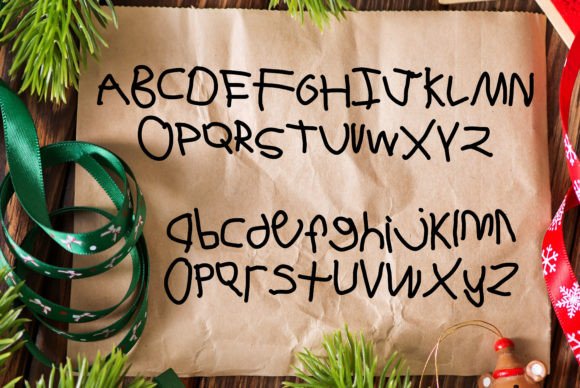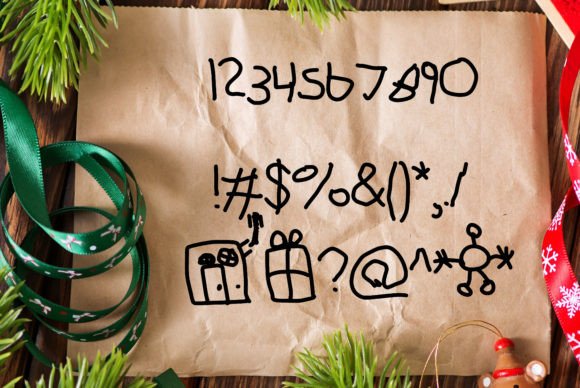
Introducing Dear Santa: The Ultimate Holiday Font for Your Festive Creations
Are you looking for a font that embodies the magic and wonder of the holiday season? Look no further than Dear Santa, a whimsical typeface that’s sure to bring a smile to everyone’s face. This charming font is perfect for designers, crafters, and anyone who wants to add a touch of holiday cheer to their creations.
The Story Behind Dear Santa
Dear Santa is a hand-drawn font that’s inspired by the classic handwritten letters to Santa Claus that children write every year. Its uneven, carefree strokes and adorable doodles capture the essence of childhood and the holiday season. The font’s playful and carefree nature makes it perfect for a wide range of holiday projects, from festive posters and holiday cards to gift tags and decorations.
What Makes Dear Santa So Special?
So, what sets Dear Santa apart from other fonts? Here are just a few reasons why this font is a must-have for your holiday designs:
- Hand-drawn charm: Dear Santa has a unique, hand-drawn quality that gives it a warm and personal touch. Its imperfect strokes and playful doodles make it feel like a handwritten letter from a child.
- Whimsical and playful: This font is all about having fun and embracing the magic of the holiday season. Its carefree nature makes it perfect for designs that need to be playful and eye-catching.
- Instantly recognizable: Dear Santa is a font that’s instantly recognizable as holiday-themed. It’s the perfect choice for designers who want to create festive and seasonal designs that stand out.
- Versatile: Whether you’re designing holiday cards, gift tags, posters, or decorations, Dear Santa is a versatile font that can be used for a wide range of projects.
How to Use Dear Santa in Your Designs
Dear Santa is a font that’s easy to use and can be incorporated into a wide range of designs. Here are a few ideas to get you started:
- Holiday cards: Use Dear Santa to create personalized holiday cards that are sure to delight your friends and family.
- Gift tags: Add a touch of holiday cheer to your gifts with Dear Santa. This font is perfect for creating custom gift tags that are both festive and functional.
- Festive posters: Create eye-catching posters that showcase the magic of the holiday season with Dear Santa.
- Decorations: Use Dear Santa to create custom holiday decorations, such as banners, garlands, and signs.
Tips for Getting the Most Out of Dear Santa
Here are a few tips for getting the most out of Dear Santa:
- Experiment with colors: Dear Santa looks great in a range of colors, from traditional holiday red and green to more modern and bold color schemes.
- Mix and match: Don’t be afraid to mix and match Dear Santa with other fonts to create a unique and eye-catching design.
- Keep it playful: Remember, Dear Santa is all about having fun and embracing the magic of the holiday season. Keep your designs playful and lighthearted to get the most out of this font.
Dear Santa is a font that’s sure to bring a touch of holiday cheer to your designs. Its whimsical and playful nature makes it perfect for a wide range of holiday projects, from festive posters and holiday cards to gift tags and decorations. With its hand-drawn charm and instantly recognizable holiday theme, Dear Santa is a must-have font for designers and crafters who want to create unique and eye-catching holiday designs.